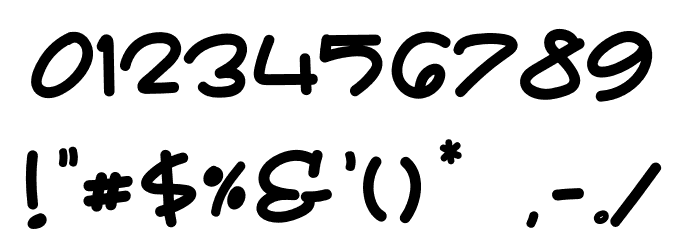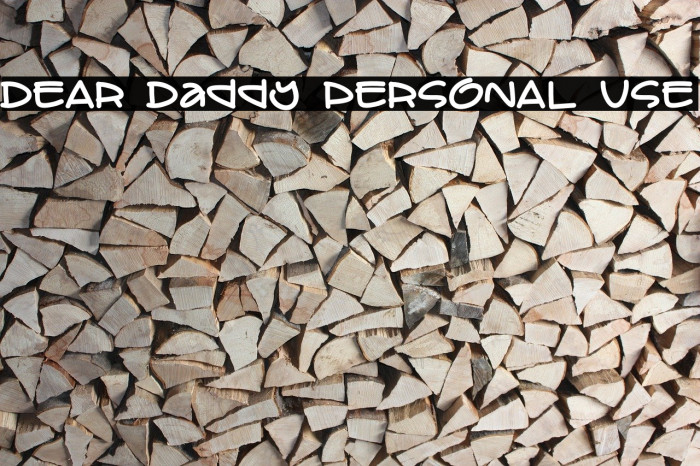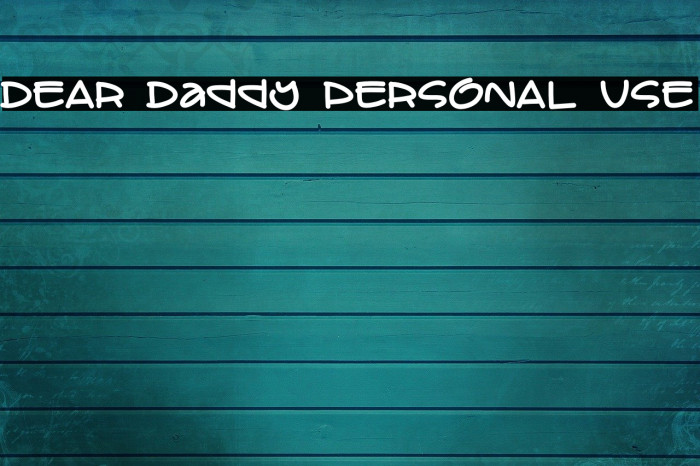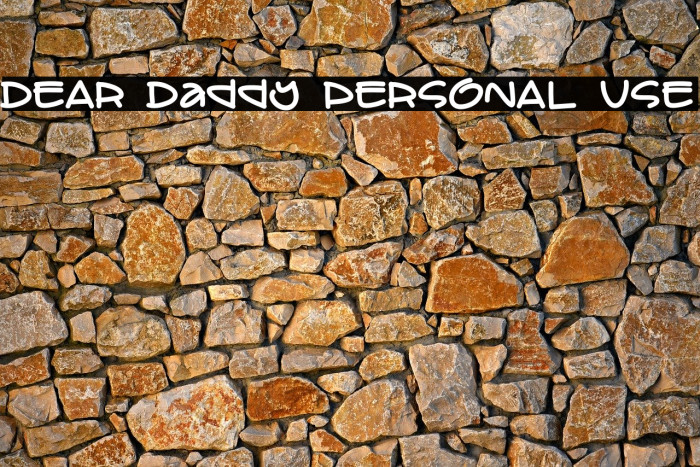
DEAR Daddy PERSONAL USE Font
This playful and informal font features a handwritten style with bold, rounded characters. The letters are slightly irregular, giving it a casual and friendly appearance. The uppercase and lowercase letters maintain a consistent style, with a slight slant that adds to the dynamic feel. The numerals and special characters are equally bold and rounded, ensuring readability and coherence across all elements. This font's unique charm makes it suitable for projects that require a personal touch.
A bold, handwritten font with a playful and informal style.
- Proposed Projects: Ideal for greeting cards, children's books, playful branding, and casual invitations.
- Overall Style: Casual
- Use Case: Headlines, Logos, Informal Text